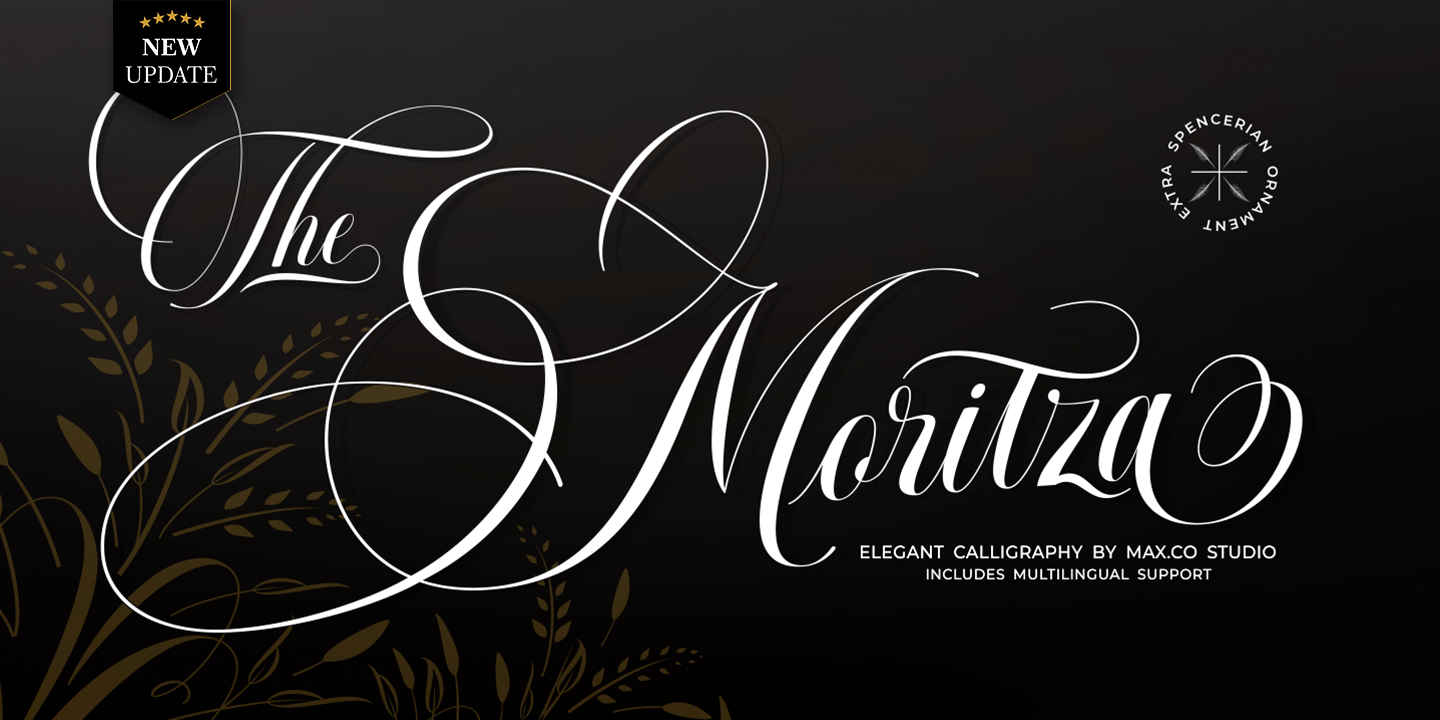
Moritza Script Font is ideal for romantic wedding invitations, luxury spa branding, boutique fashion labels, handwritten letter designs, intimate personal stationery, elegant greeting cards, sophisticated beauty brands, artisan craft businesses, exclusive event invitations, feminine lifestyle magazines, delicate jewelry packaging, and graceful calligraphy workshops.
This font is exciting because it captures the enchanting femininity and romantic sophistication of handwritten love letters, featuring gracefully flowing script letterforms that dance across the page with the same intimate elegance and personal warmth found in carefully penned notes between lovers and the delicate flourishes of feminine handwriting that speaks directly to the heart with authentic emotional connection. The beautifully crafted character design embodies both the technical precision of masterful calligraphy and the natural grace of feminine expression, creating typography that feels both professionally polished and genuinely heartfelt. Each letter connects with organic rhythm and romantic beauty, transforming ordinary text into intimate expressions that celebrate the art of personal communication and feminine grace.
The Moritza Script Font family includes regular weight with complete character sets featuring elegant script numerals, romantic punctuation marks, and decorative flourishes that enhance the handwritten aesthetic with sophisticated feminine appeal. Advanced versions may offer additional stylistic variants with enhanced calligraphic effects, alternate characters that create natural script connections, and ornamental swashes that celebrate the artistry of feminine handwriting and romantic correspondence.
Whether you're developing romantic event materials, creating feminine luxury branding, or designing intimate personal communications, Moritza Script Font Free Download provides the romantic elegance and feminine sophistication your project needs to create meaningful connections that resonate with audiences who appreciate authentic feminine artistry and the timeless beauty of handwritten expression. This typeface transforms ordinary text into romantic declarations that carry the emotional weight and visual beauty of carefully crafted feminine handwriting. The font's romantic character makes it perfect for brands and occasions that celebrate feminine grace, romantic love, and intimate personal connection. Romantic designers and feminine brand enthusiasts will appreciate how this font brings authentic script elegance to their work with its genuinely flowing and romantically sophisticated character that honors the beauty of feminine expression.